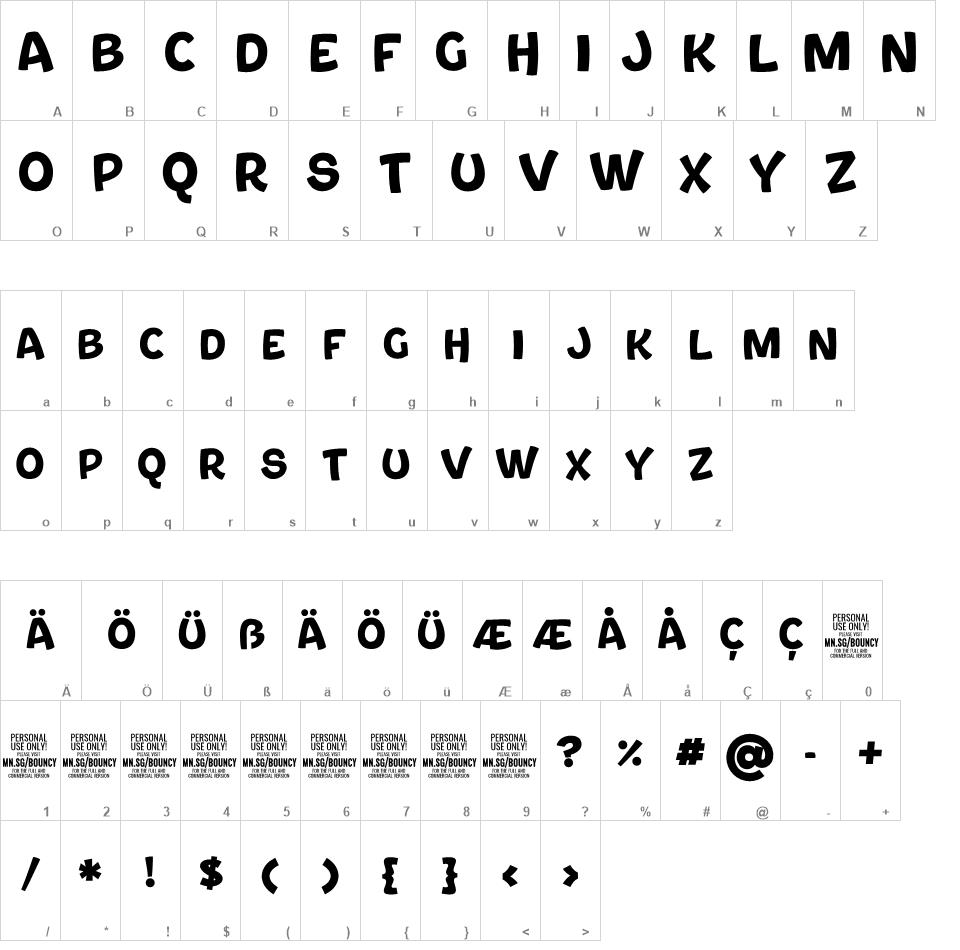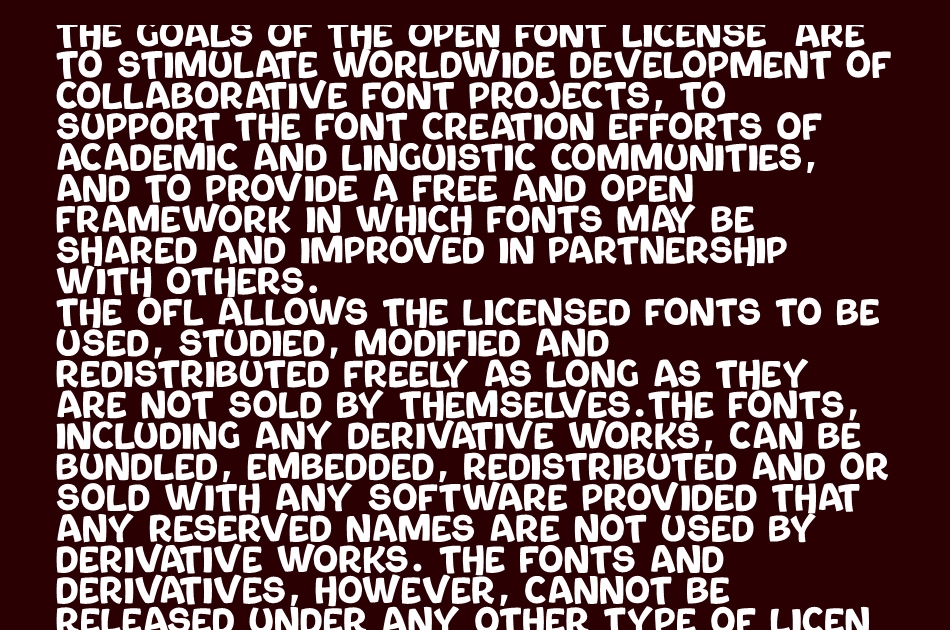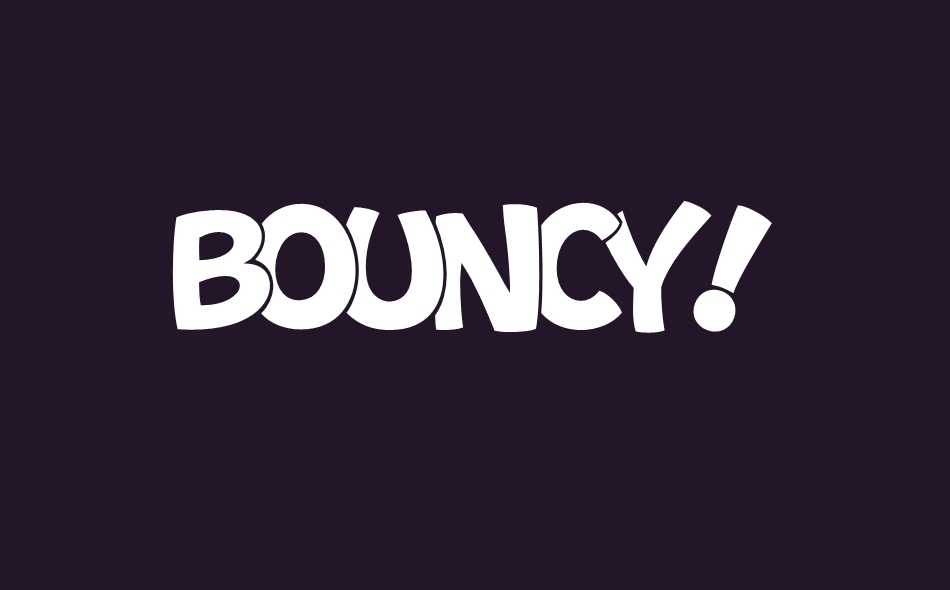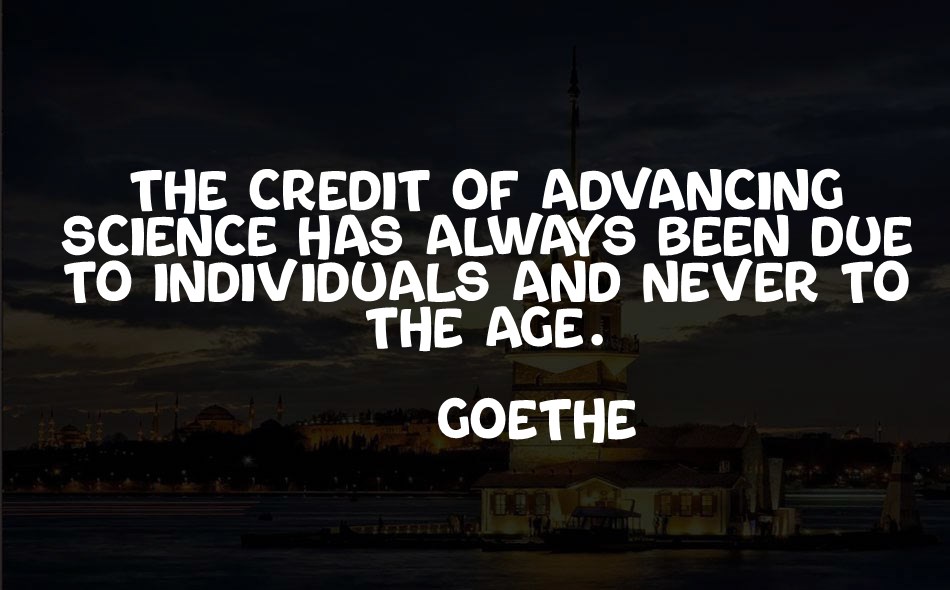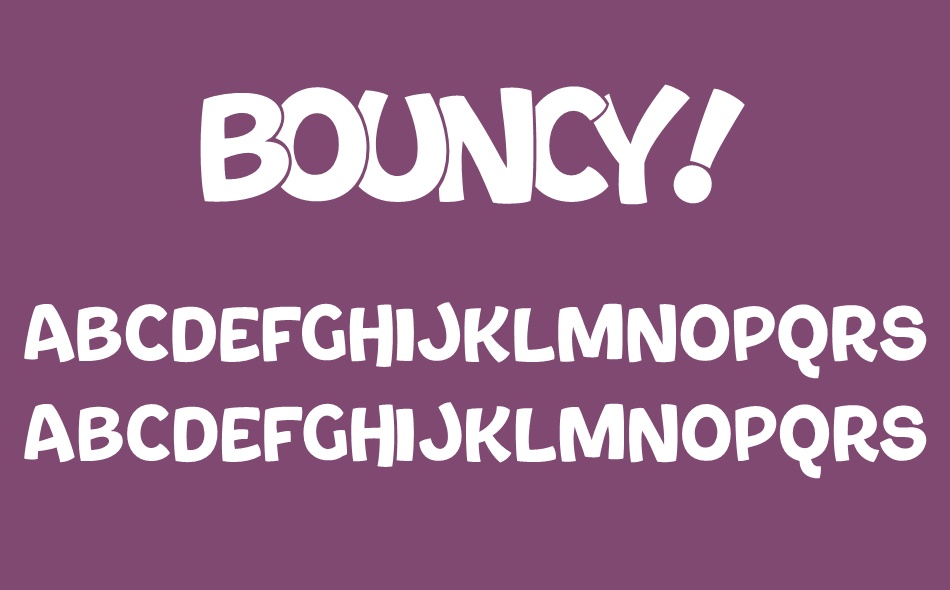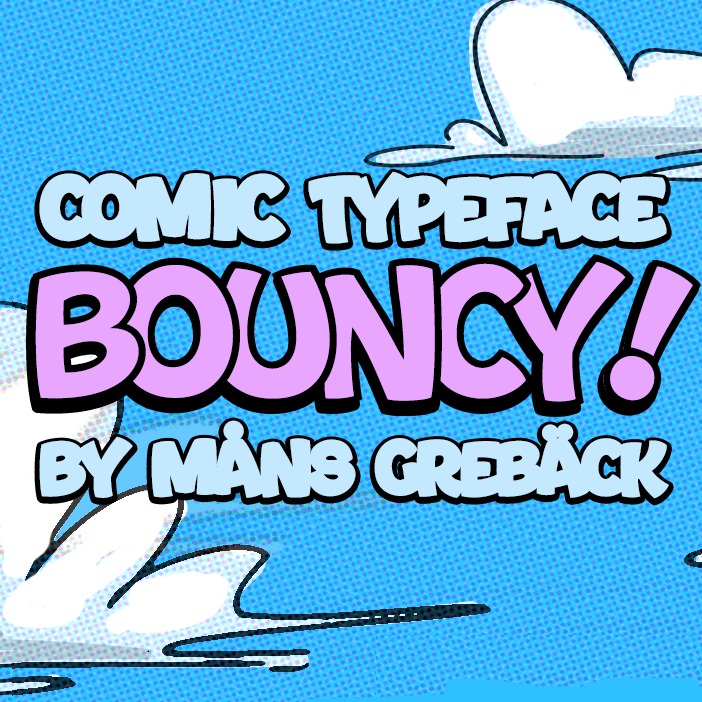
Bouncy font
Activate "Contextual Alternates" in your design program, and the letters will overlap.
Bouncy is a funny cartoon font. Drawn and created by Mans Greback in 2021, this comic-style lettering has a happy, quirky personality and optimistically bold appearance.
The typeface is provided in three styles: Thin, Black and Regular (Outlined)
Bouncy is built with advanced OpenType functionality and has a guaranteed top-notch quality. It has extensive lingual support, covering all European Latin scripts. It contains all characters you'll ever need, including all punctuation and numbers.